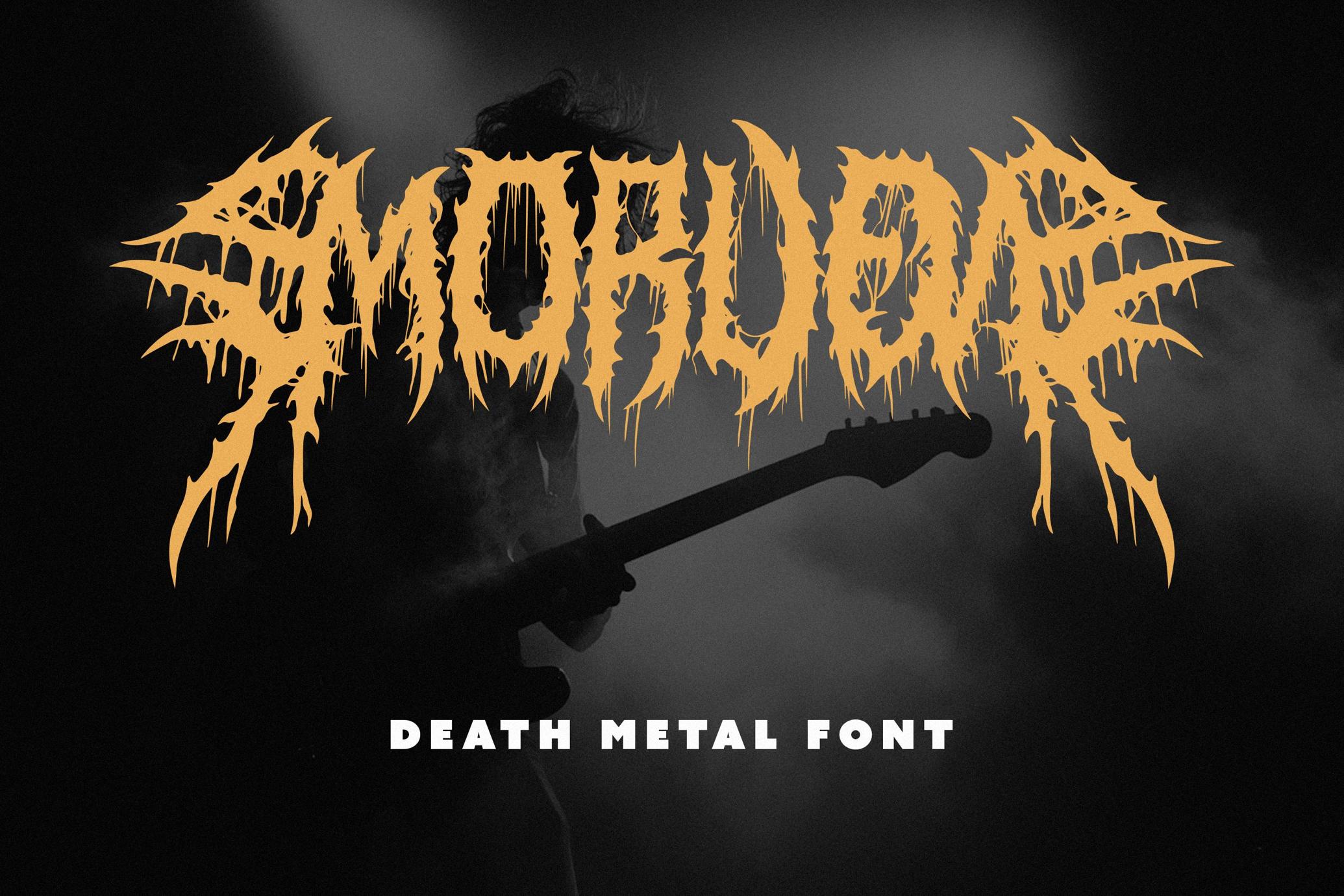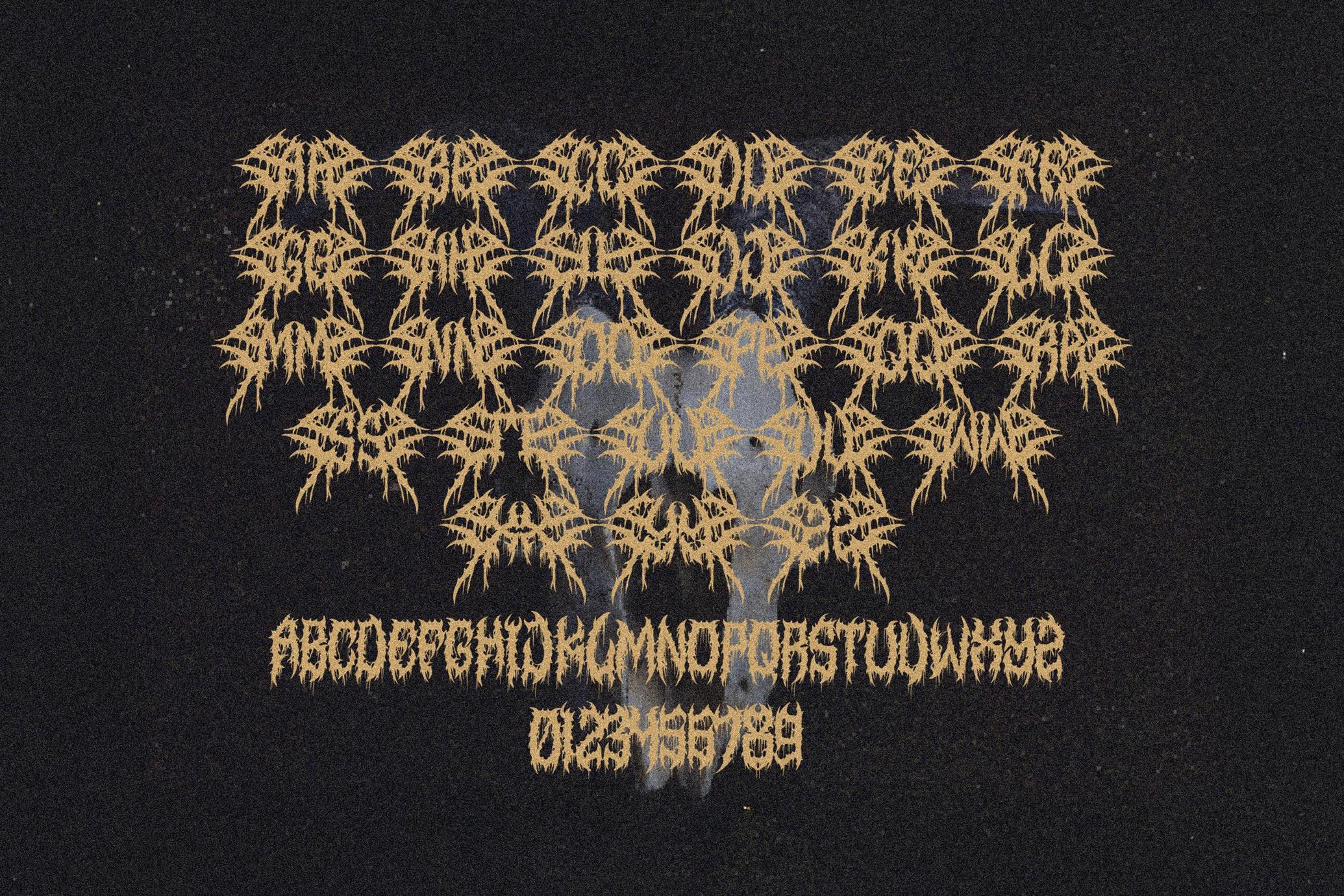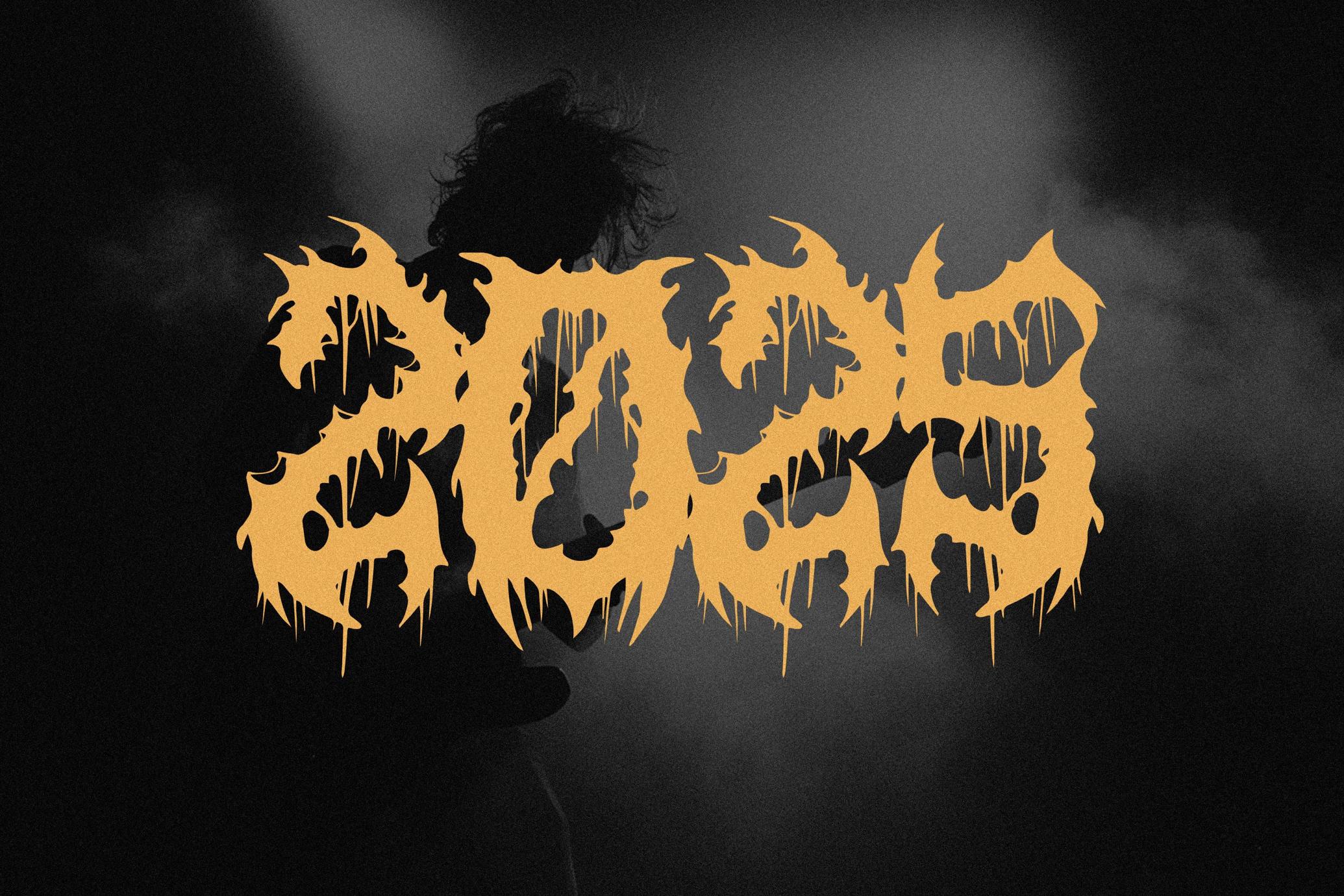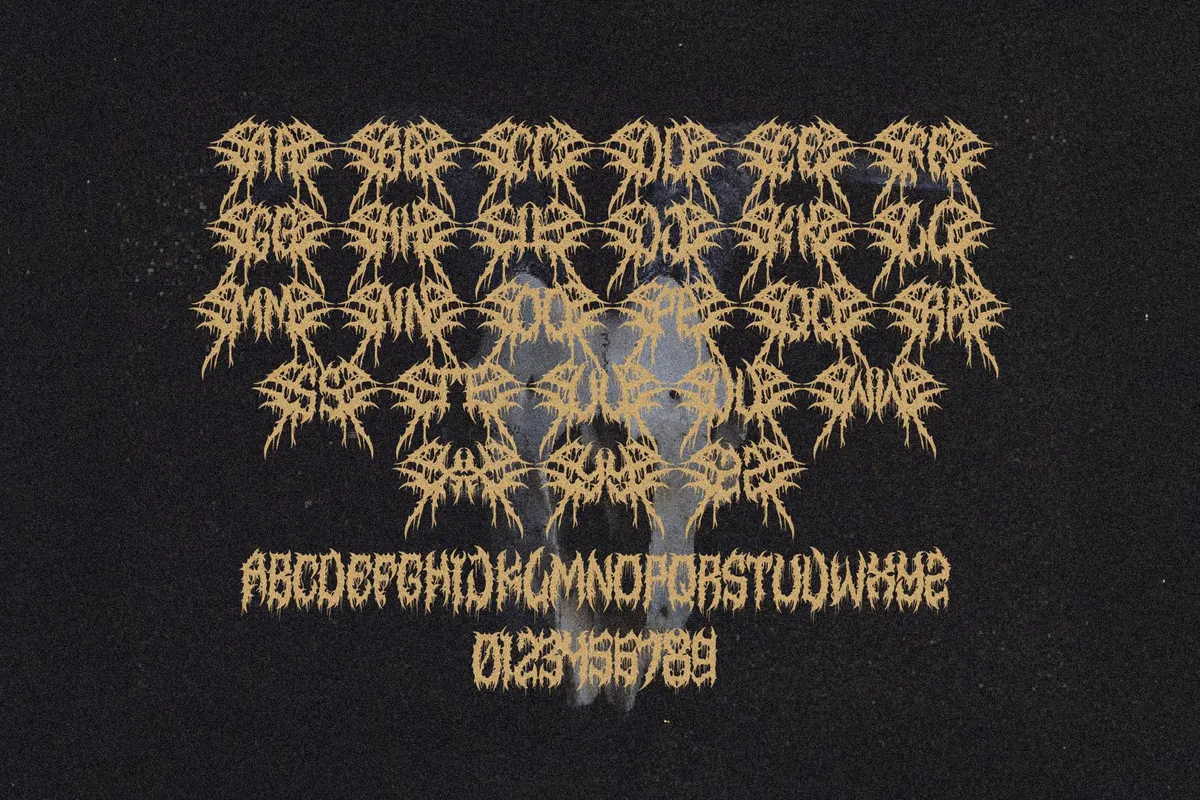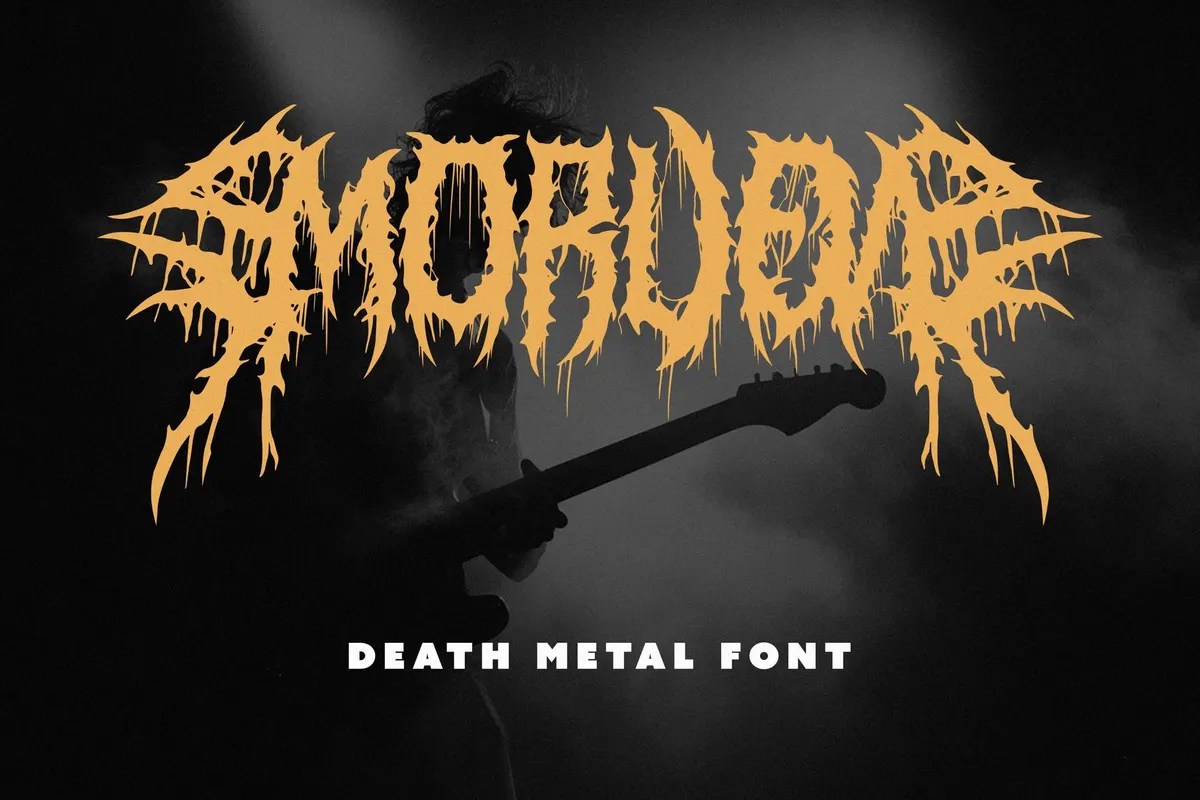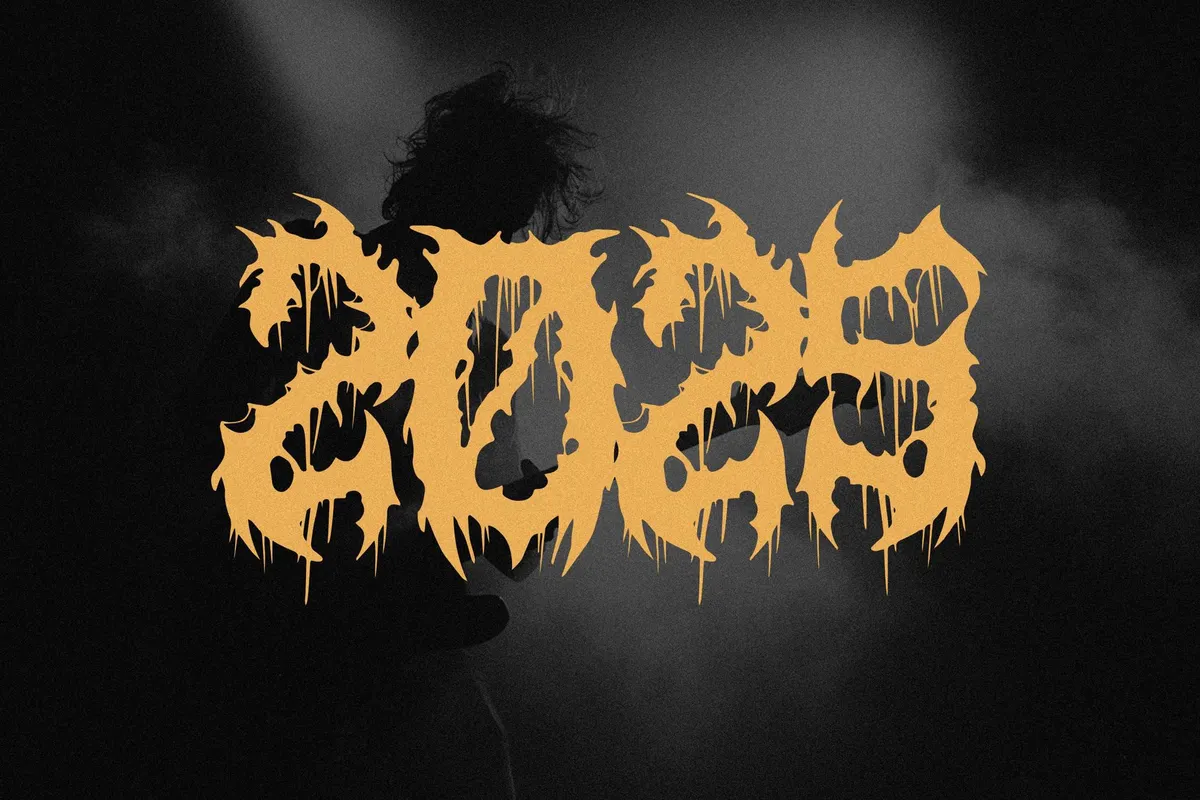
Morven — Death Metal Font
Morven
The Morven brings the chaotic beauty of death metal logos into a usable type system. It thrives in loud, distorted compositions — band merch, horror festival posters, underground branding, VHS-inspired graphics, gig flyers, and all metal-related stuff. It's all about early Slayer bootlegs, goregrind MySpace banners, or the kind of unreadable logos you’d find on a cracked snare drum in a DIY venue. Although it lives on the edge of legibility and menace, Morven font includes uppercase & lowercase, numerals, and alternate glyphs — all with that signature decay, spine-like edges, and splatter-drip energy.